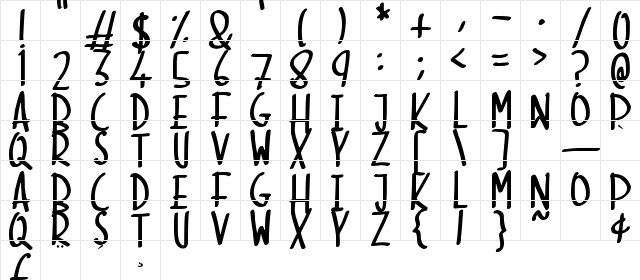
Skinny Marker Regular
Design Context for Skinny Marker Typeface
Skinny Marker is a composed and adaptable typeface that performs quietly and consistently across a wide range of design contexts.